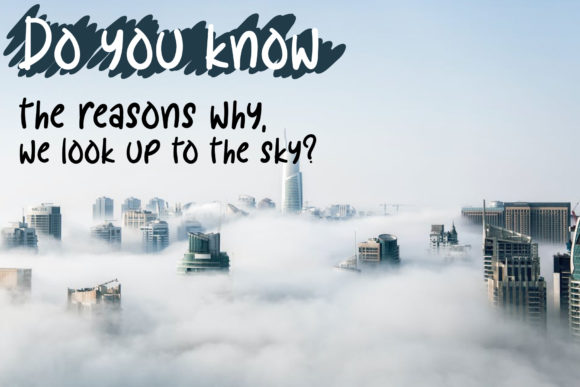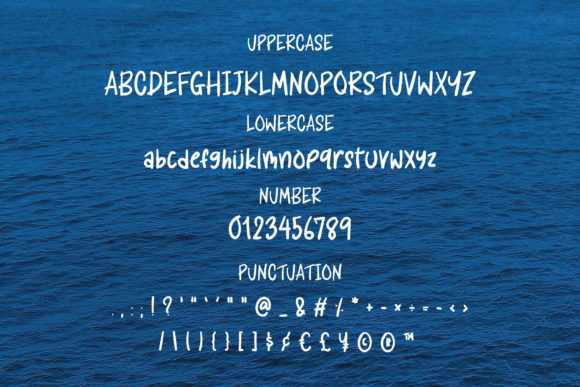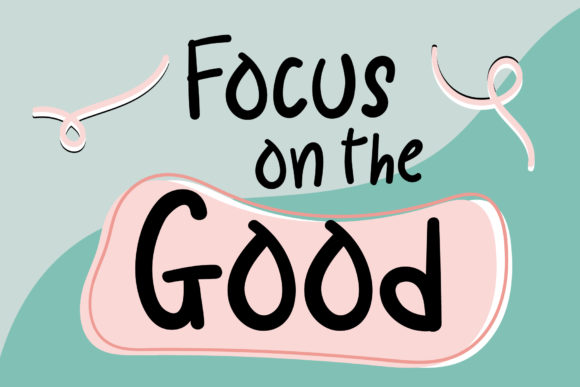
Introduction to Origano Pizza Font
Have you ever been working on a creative project, staring at a blank canvas or a blank piece of paper, waiting for that spark of inspiration to strike? For designers, this moment is all too familiar, but it’s also what makes our work so rewarding. Whether you’re a seasoned pro or just starting out, the right design resource can be the difference between a good project and a great one.
That’s where the Origano Pizza Font comes in – a unique and quirky handwritten font that’s sure to add some personality to your designs. With its high quality design and transparent background, this font is a versatile tool that can be used in a variety of creative projects, from logos and graphics to menus and signage.
In this article, we’ll take a closer look at the Origano Pizza Font and explore its many uses and benefits. Whether you’re looking for a free download or just want to add some flair to your next design project, this font is definitely worth checking out.
Key Features of Origano Pizza Font
- High-quality design resource ideal for creative projects, including restaurant menus, food blogs, and advertising materials.
- Unique, hand-drawn style with a transparent background, providing flexibility for designers to create visually appealing compositions.
- Perfect for use in food-related businesses, such as pizzerias, cafes, and restaurants, to create a welcoming and appetizing atmosphere.
Honest Review: Origano Pizza Font
As a designer, I’m always on the lookout for high-quality design resources that can elevate my creative projects. The Origano Pizza Font is one such resource that caught my attention.
Here are some things that work well about this font:
- ✨ Unique and playful design that’s perfect for food-related projects
- ⚠️ Limited character set, which may not be suitable for longer text
- ⚠️ Not ideal for use in body text, due to its playful and decorative nature
Overall, the Origano Pizza Font is a great addition to any designer’s toolkit, especially for creative projects that require a unique and eye-catching font. While it may have some limitations, its high-quality design and free download make it a worthwhile resource to have in your library.
The Origano Pizza Font is a high-quality design resource ideal for creative projects, available for free download. With its transparent background, it’s perfect for adding a touch of Italian flair to your designs.
Combine the Origano Pizza Font with other design elements, such as images or graphics, to create visually appealing designs. Experiment with different font sizes and colors to achieve the desired effect.
The Origano Pizza Font is perfect for:
– Food-related businesses or restaurants
– Creative projects, such as social media graphics or flyers
– Professional projects, such as logos or packaging designs